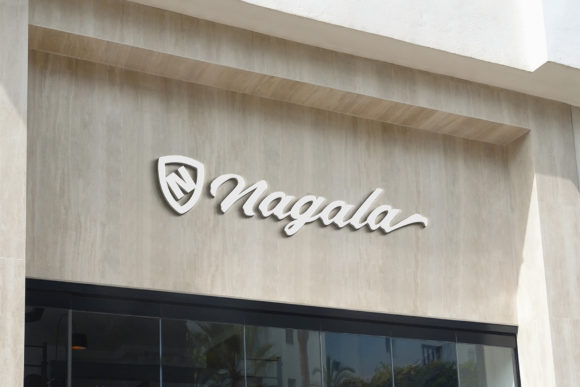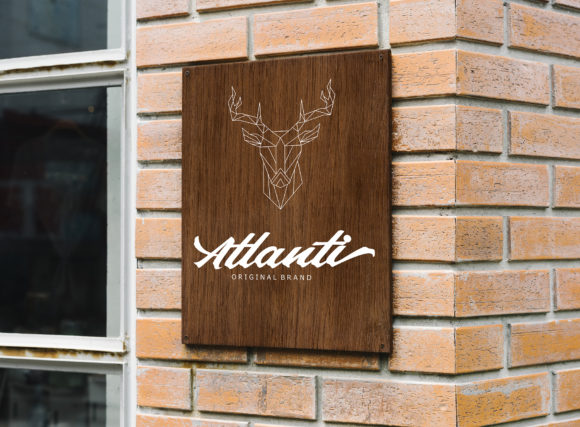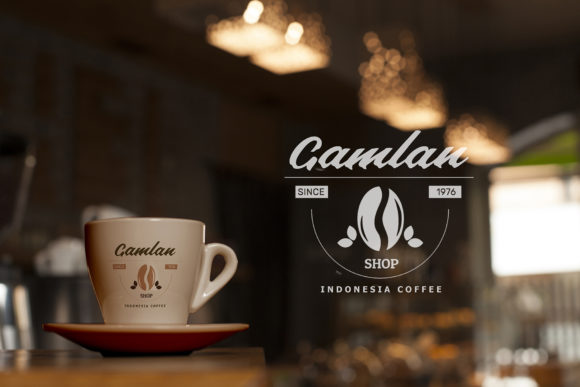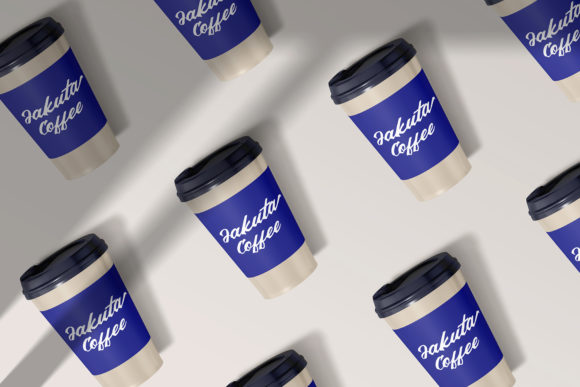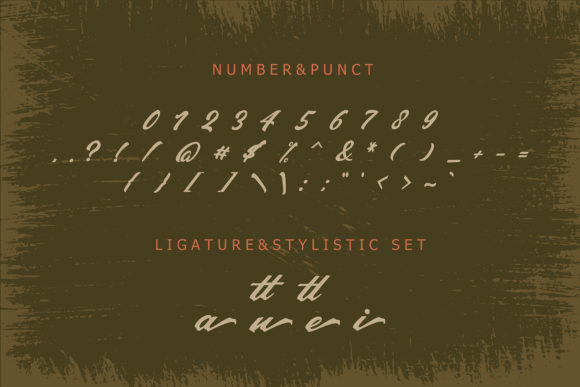
About Haluga Font
Haluga is a bold script font that exudes elegance and sophistication. Its hand-lettered style adds a touch of authenticity and charm to your designs. This font is meticulously designed and crafted to be applied in a variety of contexts, making it a versatile choice for various formal forms and creative projects.
The bold nature of Haluga gives it a strong and impactful presence, making it ideal for logos and branding purposes. Whether you’re creating a logo for a business, event, or personal brand, Haluga adds a sense of professionalism and uniqueness. Its flowing and dynamic letterforms create a visually appealing and memorable logo that leaves a lasting impression.
In addition to logos, Haluga can be applied to invitations, labels, magazines, books, greeting cards, packaging, and more. Its versatility allows it to adapt to different design needs and contexts. Whether you’re designing a formal invitation for a special event or creating a label for a product, Haluga adds a touch of elegance and sophistication.
Haluga is also well-suited for editorial purposes, such as fashion magazines or makeup brands. Its stylish and refined letterforms complement the aesthetics of these industries and add a sense of sophistication to your designs. Additionally, Haluga can be used for stationery, novels, and any other advertising materials where a bold and captivating script font is desired.
With its extensive range of applications, Haluga offers flexibility and creativity in your design projects. The font’s hand-lettered style adds a personalized and unique touch, making your designs stand out. Its legibility ensures that your message is conveyed effectively, even in smaller sizes or longer texts.
In summary, Haluga is a bold script font that is perfect for various formal forms such as logos, invitations, labels, magazines, books, greeting cards, packaging, fashion, makeup, stationery, novels, and advertising purposes. Its elegant and hand-lettered style adds a touch of sophistication and uniqueness to your designs, making them visually appealing and impactful.